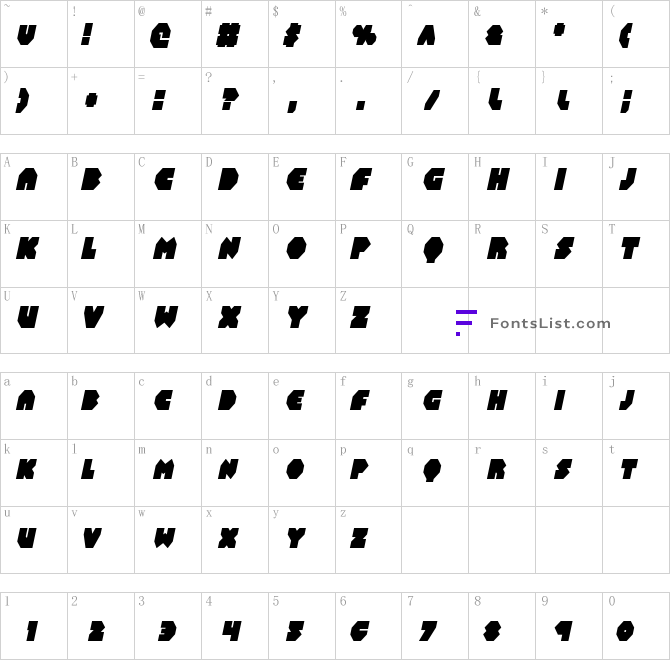
- Font Name:Bal-Astaral Condensed Italic
- Subfamily:Condensed Italic
- Subfamily:Bal-Astaral Condensed Italic: 2016
- Full Name:Bal-Astaral Condensed Italic
Bal-Astaral-Condensed-Italic.ttf is a very beautiful artistic font, Bal-Astaral-Condensed-Italic.ttf is widely used in the design and printing of various books and pictures,Bal-Astaral-Condensed-Italic.ttf has a strong visual impact,Bal-Astaral-Condensed-Italic.ttf is a commonly used font in newspapers, magazines and books, and is used in posters, e-commerce Poster design, store design, logo design, font design and other fields.Bal-Astaral-Condensed-Italic.